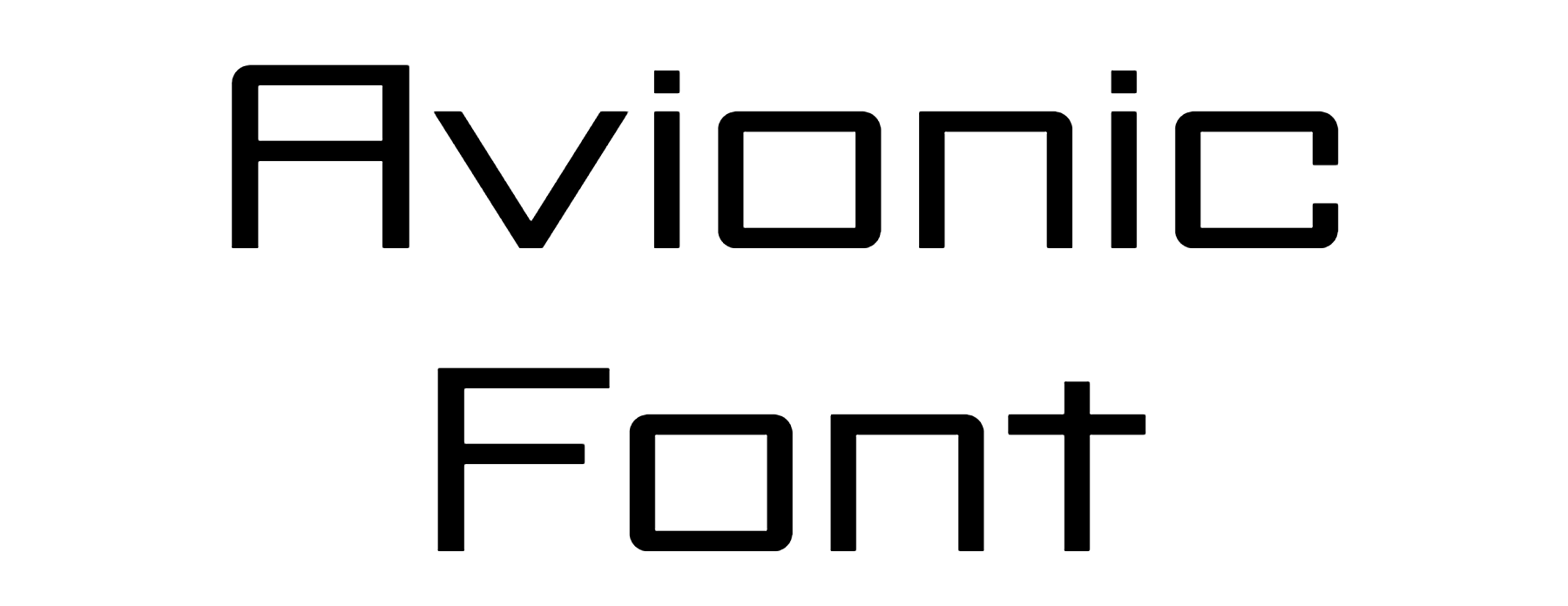
Avionic Font Preview
Avionic
Avionic is a techno font designed by Brian J. Bonislawsky & Jim Lyles and published by Grype for Astigmatic (AOETI) (2019). Squared-off, geometric letters give it a digital, high-tech feel. It's a free download, and you can try it with your own text in the preview above first.
- Weights: Regular (400) to Black (900)
- Glyphs: 96
What You Can Type With Avionic
With complete upper and lowercase letters and all ten digits, Avionic is ready for real wording, not just a single headline. Common punctuation such as &, !, ? and @ is included as well. It doesn't include accented letters such as é or ñ, which makes it an English-only font.
Where Avionic Works Best
Designers usually reach for fonts like Avionic when they're making gaming logos, tech branding and futuristic posters. Its lowercase letters are tall compared to the capitals, which keeps it readable at smaller sizes. Try it on a dark background with a bright accent color for a sharp, modern look.
Does Avionic support accented letters?
No. Avionic has no accented letters such as é, ñ or ü, so it's best for English text.
What fonts pair well with Avionic?
A simple sans serif like Roboto keeps longer text easy to read next to it.